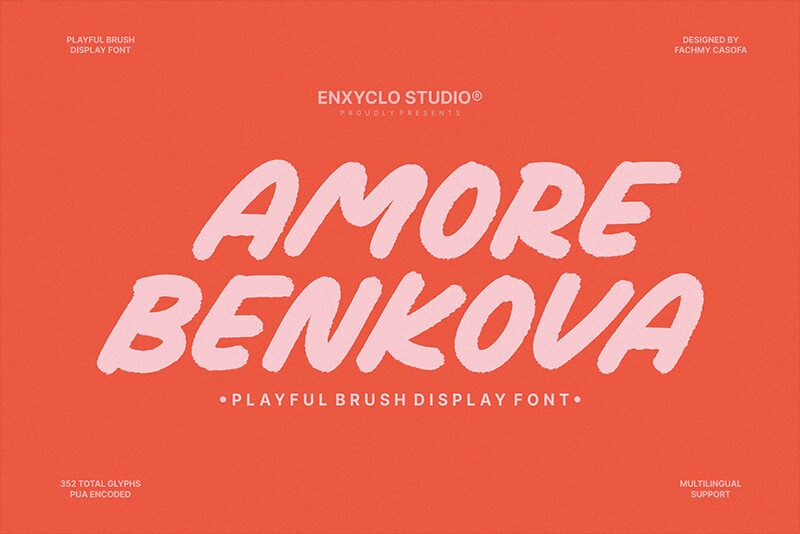
NCL Amore Benkova font by Enxyclo Studio is an expressive brush style free font. Energetic and lively, this typeface features all the characteristics of an artistic typography solution. Modern and casual, the font is a great addition to any personal project that wants to stand out.
Amore Benkova is suitable for vibrant and creative themes. When used at its full potential, it can enhance branding and advertising campaigns. Enjoy it in packaging design, print media, posters, social media, and other modern applications.